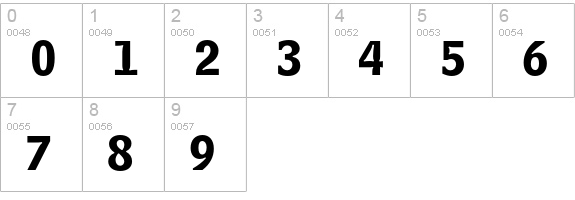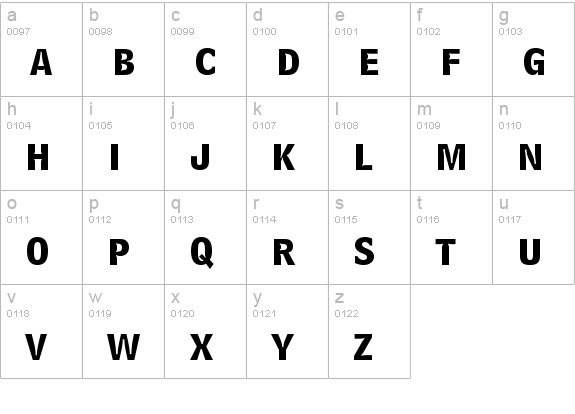
Bell Centennial Std Bold Listing is a strong, high-contrast variant in the Bell typeface family \xE2\x80\x94 well suited to headlines, attention-grabbing titles, and strong calls-to-action.
Bell Centennial Std Bold Listing font is a versatile and bold typeface that exudes confidence and modernity. With its clean lines and strong presence, this font is perfect for making a statement in any design project. Whether you're creating posters, banners, or advertisements, Bell Centennial Std Bold Listing will ensure that your message stands out with its striking appearance. What sets this font apart is that it is available for free download at FontsMarket.com, making it easily accessible to anyone looking to add a touch of boldness to their designs. The font's readability and legibility make it a popular choice for both print and digital media, ensuring that your message is always clear and impactful. Overall, Bell Centennial Std Bold Listing font is a versatile and powerful typeface that is sure to elevate your design projects to the next level. Download it for free today and see the difference it can make in your designs!